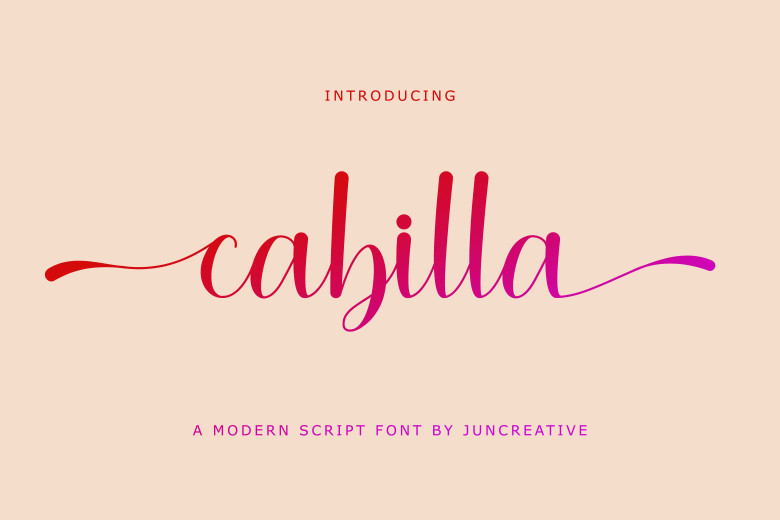
Cabilla Font
Cabilla is perfect for almost any application but performs particularly well in invitation, branding, and editorial design – it’s excellent. It’s a used ring script combination of casual yet captivating lettering for your design.
Cabilla Handwritten Script Font